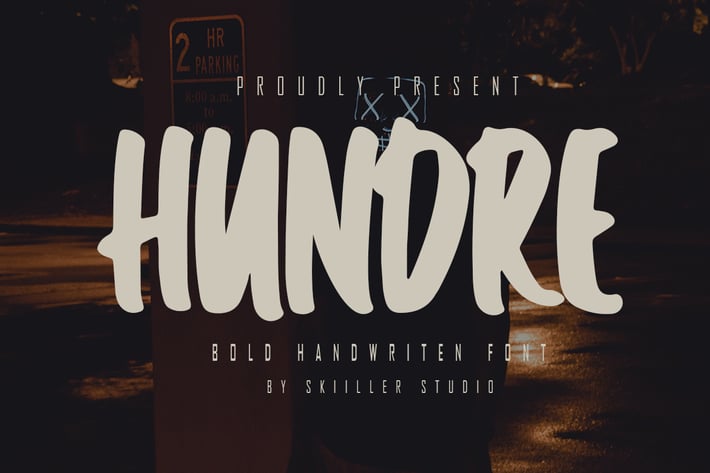
Hundre - Bold Handwritten Font
Hundre is a modern, cool, beautiful, and very suitable Handwritten font to support your presentation and support in marketing your products and business